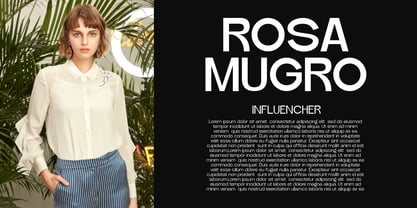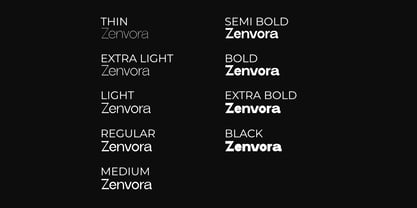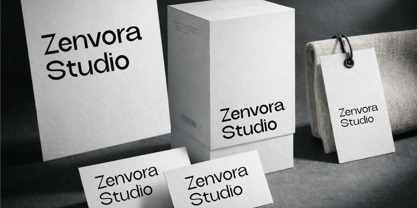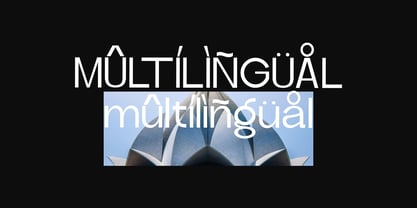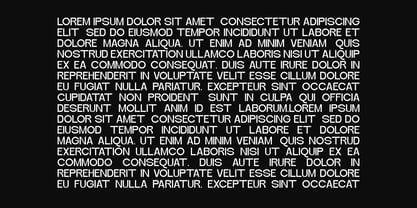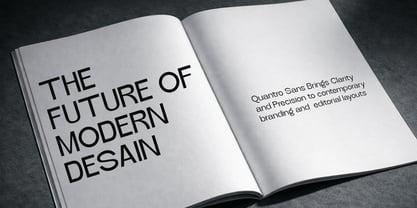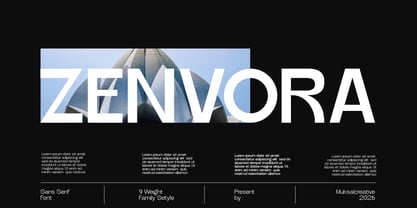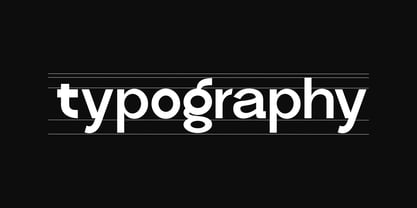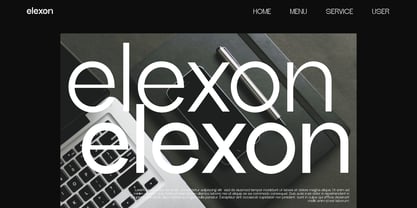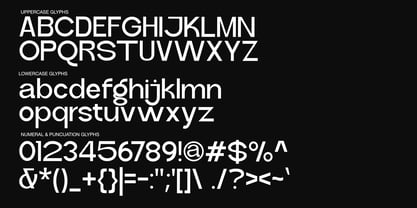
Zenvora
by Muksal Creatives
Zenvora is a modern geometric sans serif typeface designed with precision, clarity, and versatility in mind. Built for contemporary design needs, this font family delivers a clean and sophisticated look that works beautifully across branding, editorial, digital interfaces, and modern visual identities. With its balanced proportions, smooth curves, and minimalist structure, Zenvora offers a professional and refined appearance while maintaining excellent readability at both large display sizes and smaller text settings. This typeface is perfect for designers who want a strong yet elegant typographic voice. Whether used for logos, posters, websites, packaging, or corporate branding, Zenvora provides a timeless modern aesthetic that adapts effortlessly to a wide range of creative projects. Quantro Sans comes with a complete 9-weight family, giving designers full flexibility to create clear hierarchy and impactful compositions.
Designers: Muksalmina
Foundry: Muksal Creatives